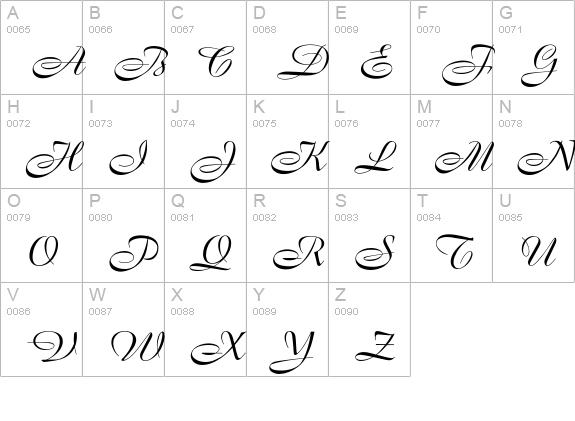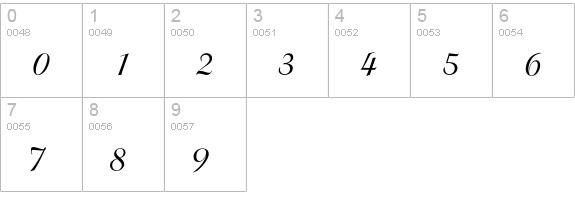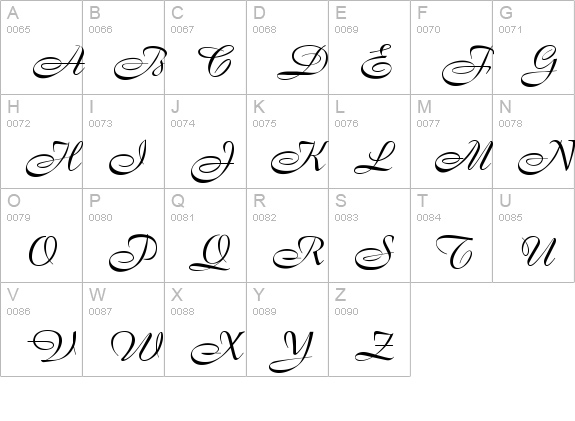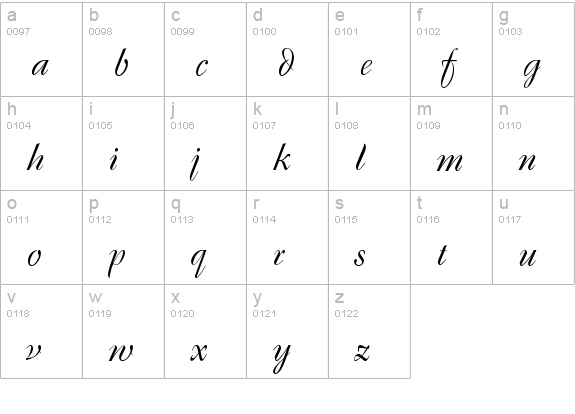
Boulevard BQ Font Details
Boulevard BQ is a modern and elegant font that exudes sophistication and style. With its sleek lines and graceful curves, this typeface is perfect for creating stunning designs that command attention. The versatility of Boulevard BQ makes it suitable for a wide range of projects, from branding to editorial design. What sets Boulevard BQ apart is not only its aesthetic appeal but also its accessibility. This exquisite font is available for free download at FontsMarket.com, making it a valuable addition to any designer's toolkit. Whether you're working on a branding project or crafting a beautiful invitation, Boulevard BQ is sure to elevate your design and leave a lasting impression.